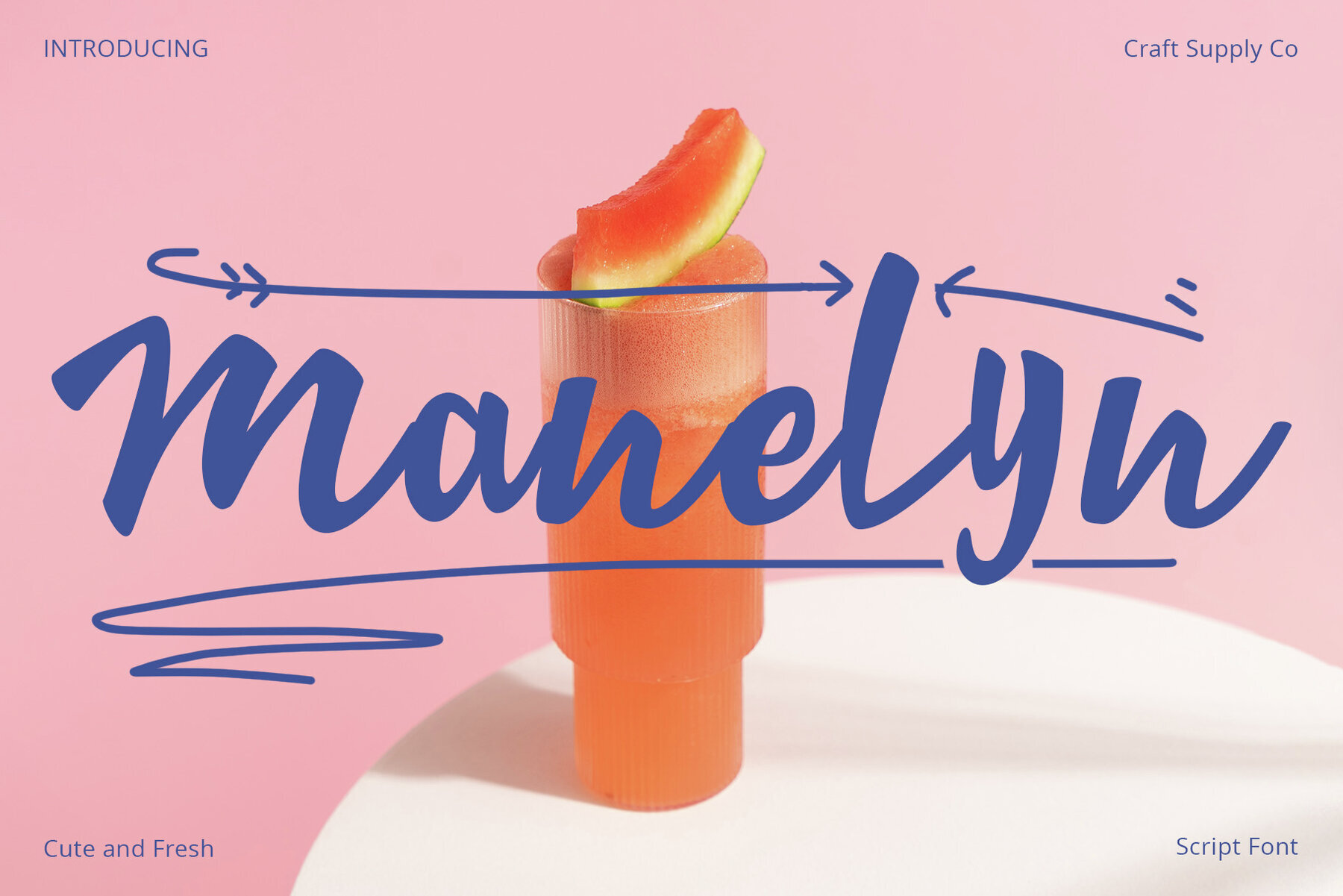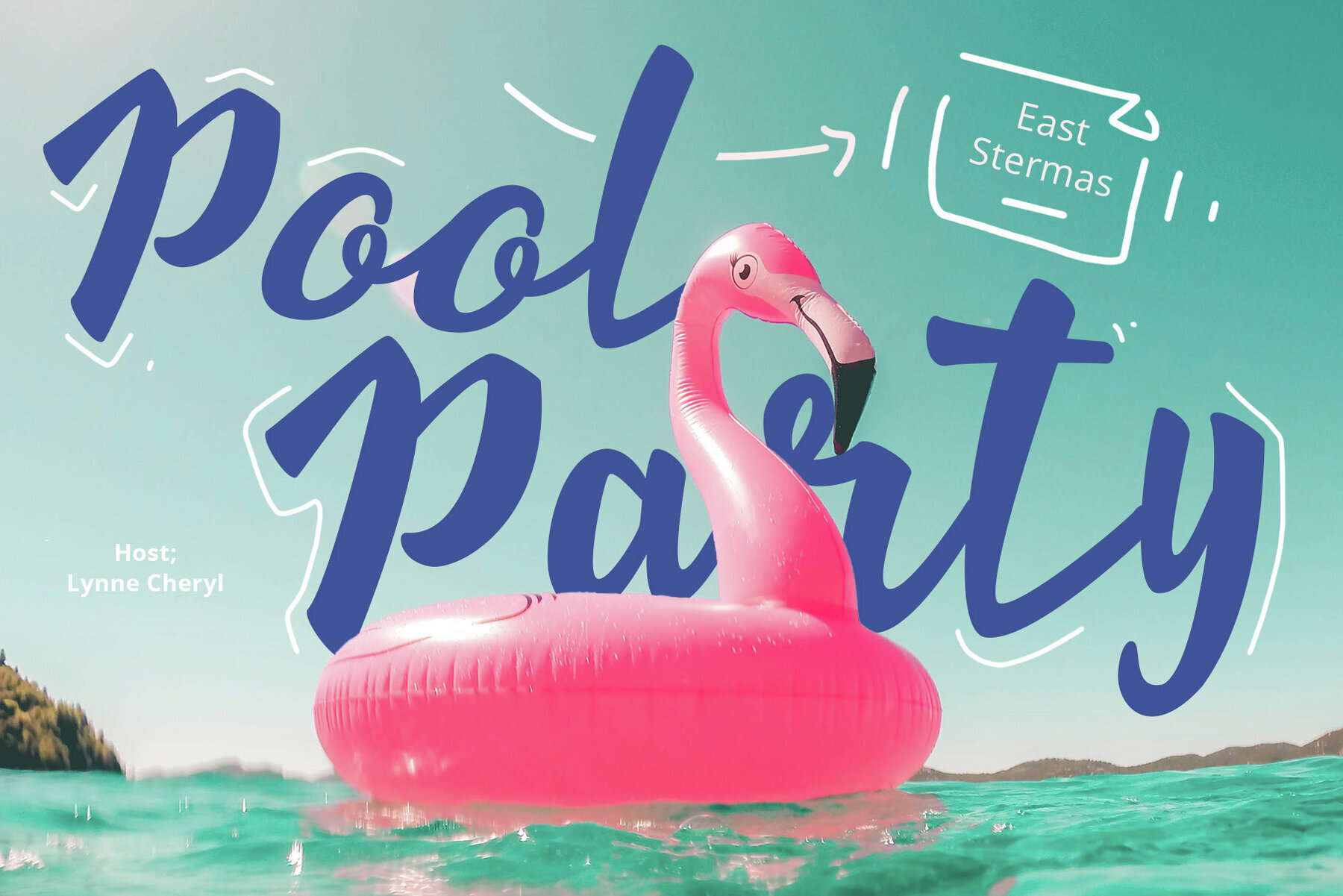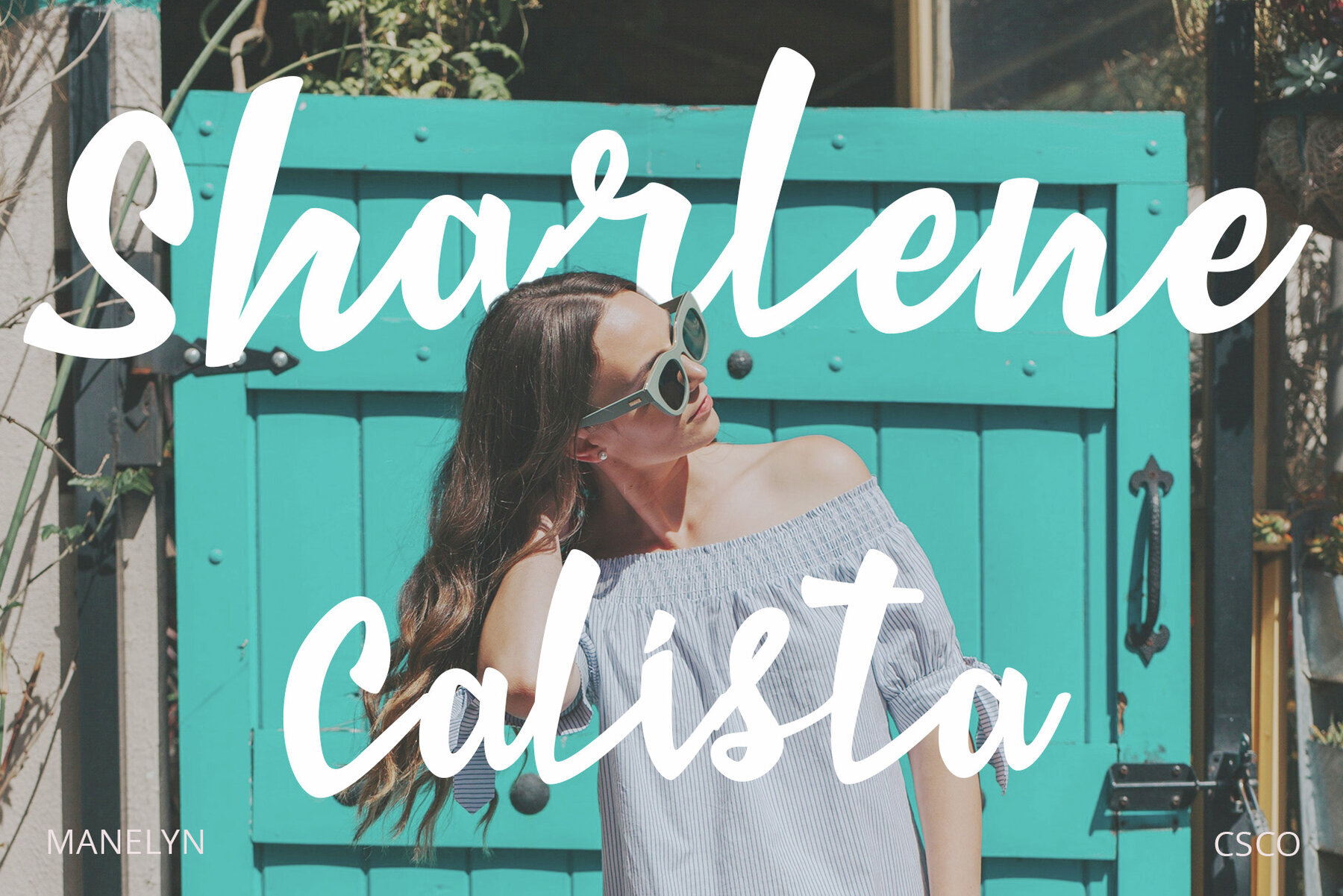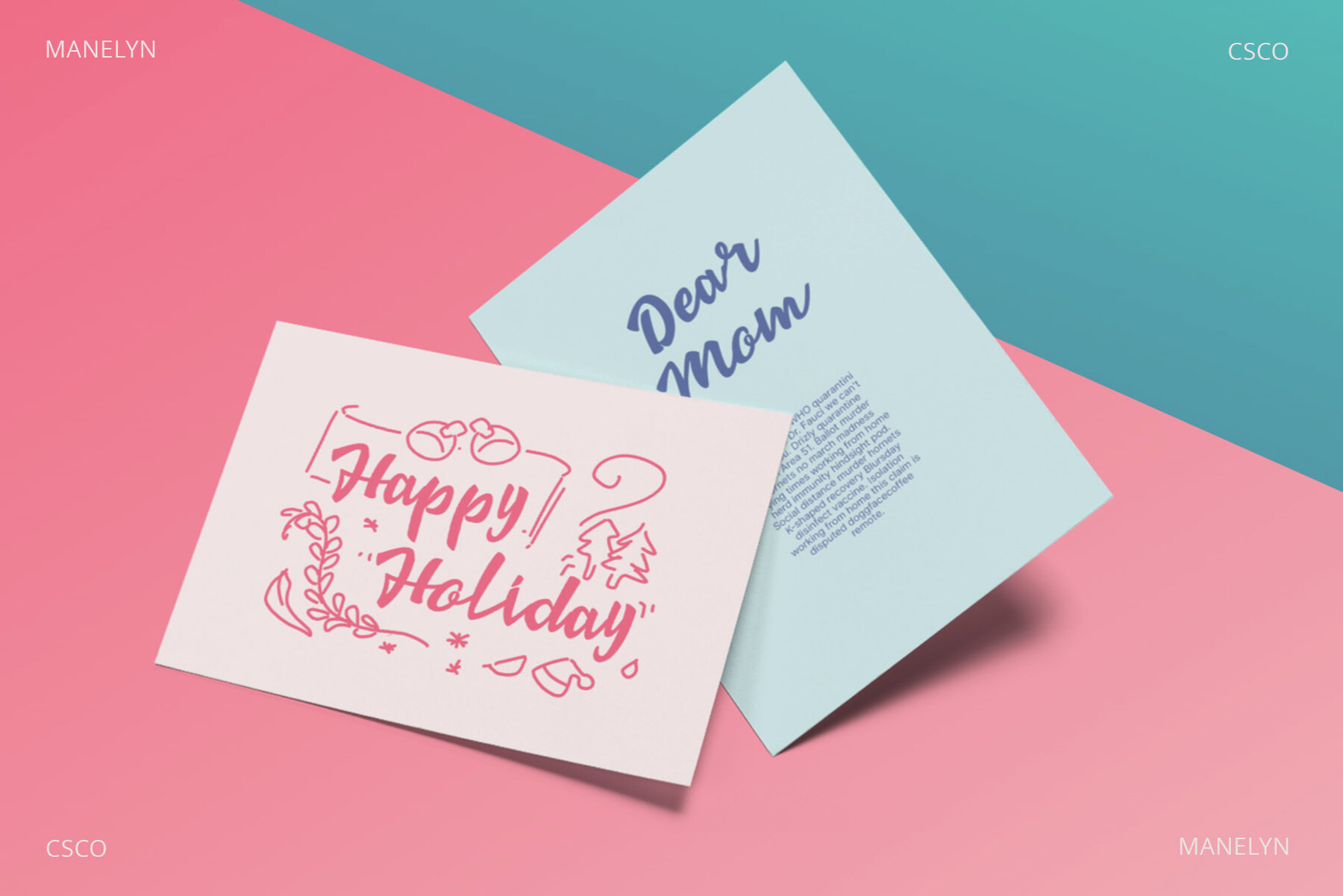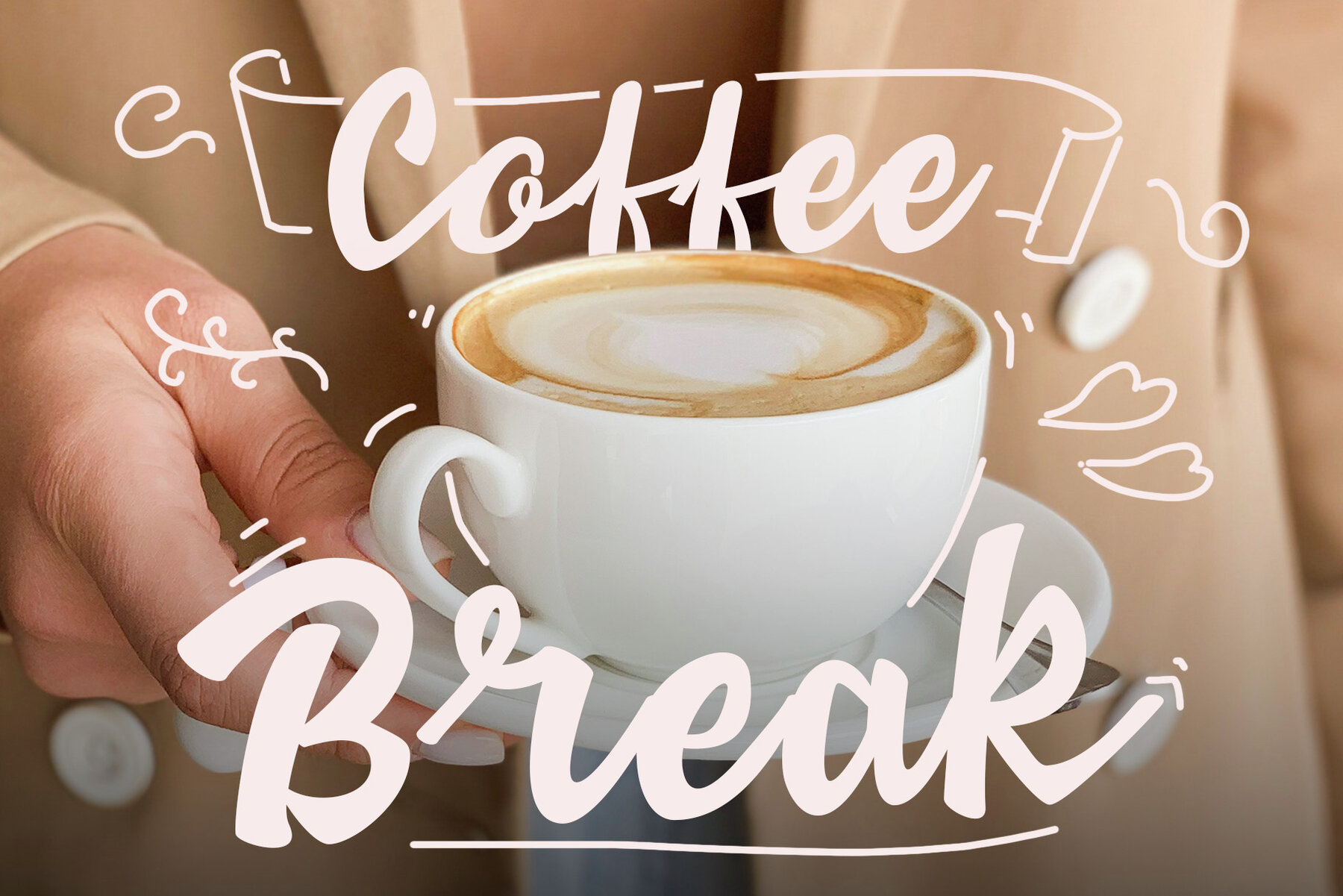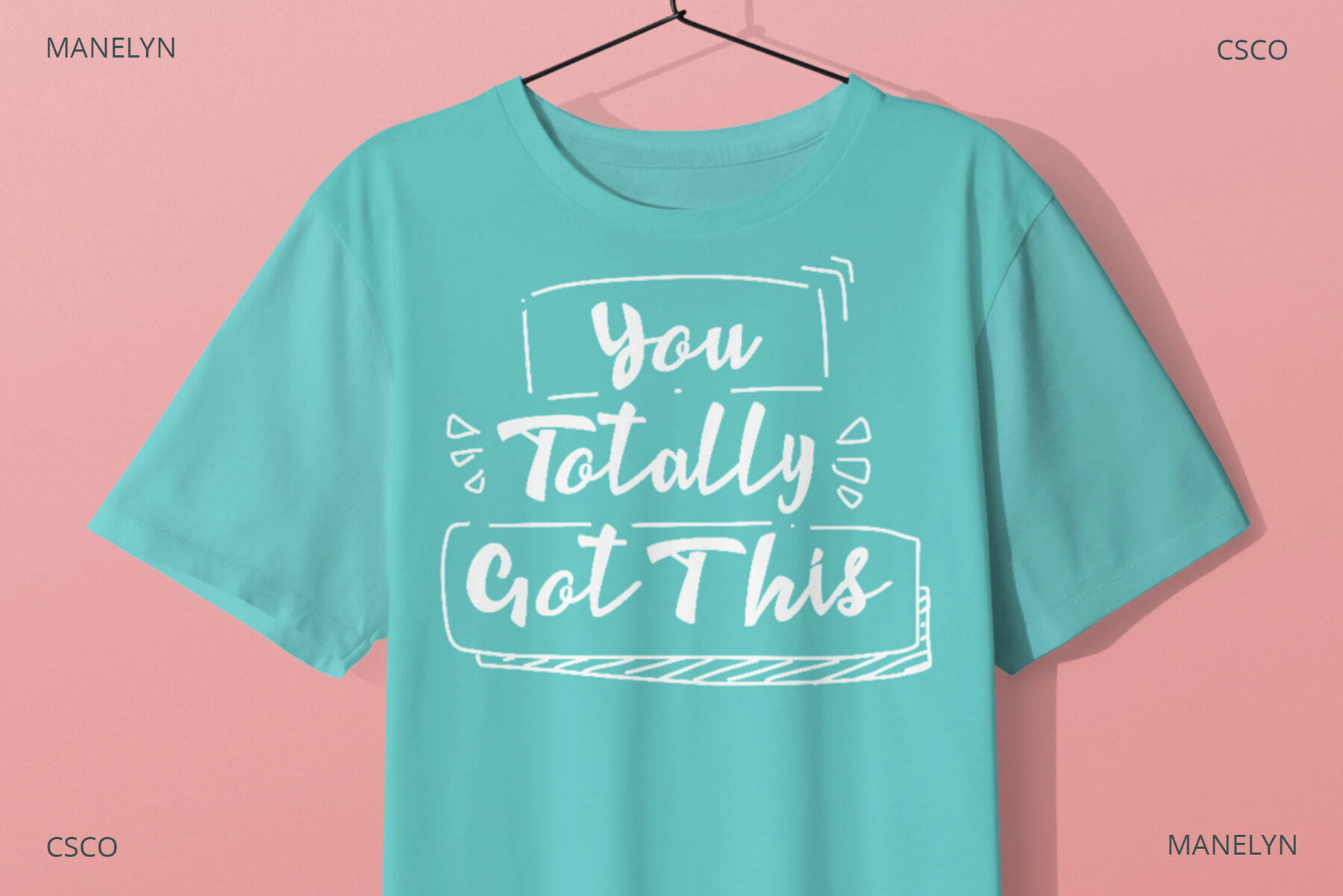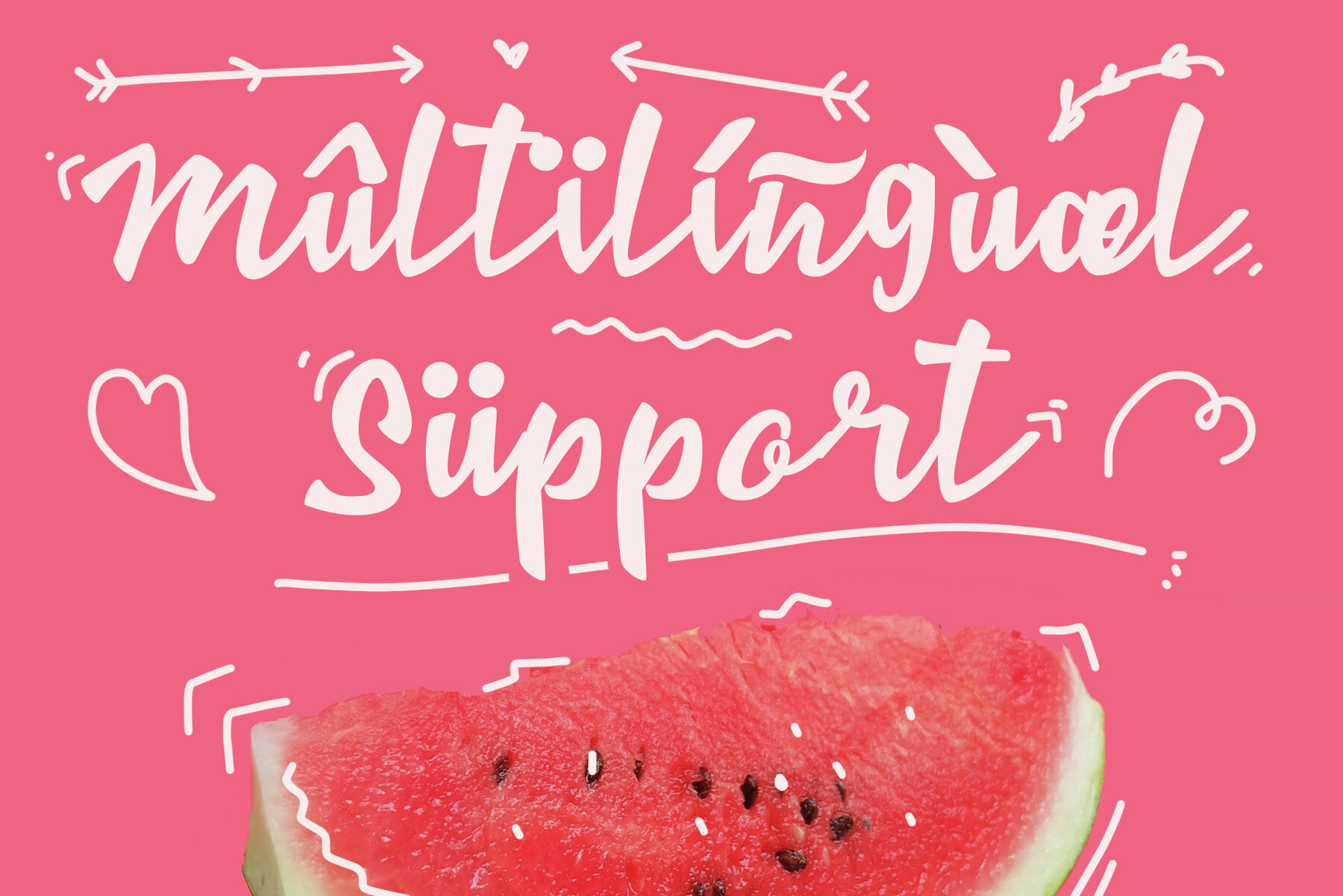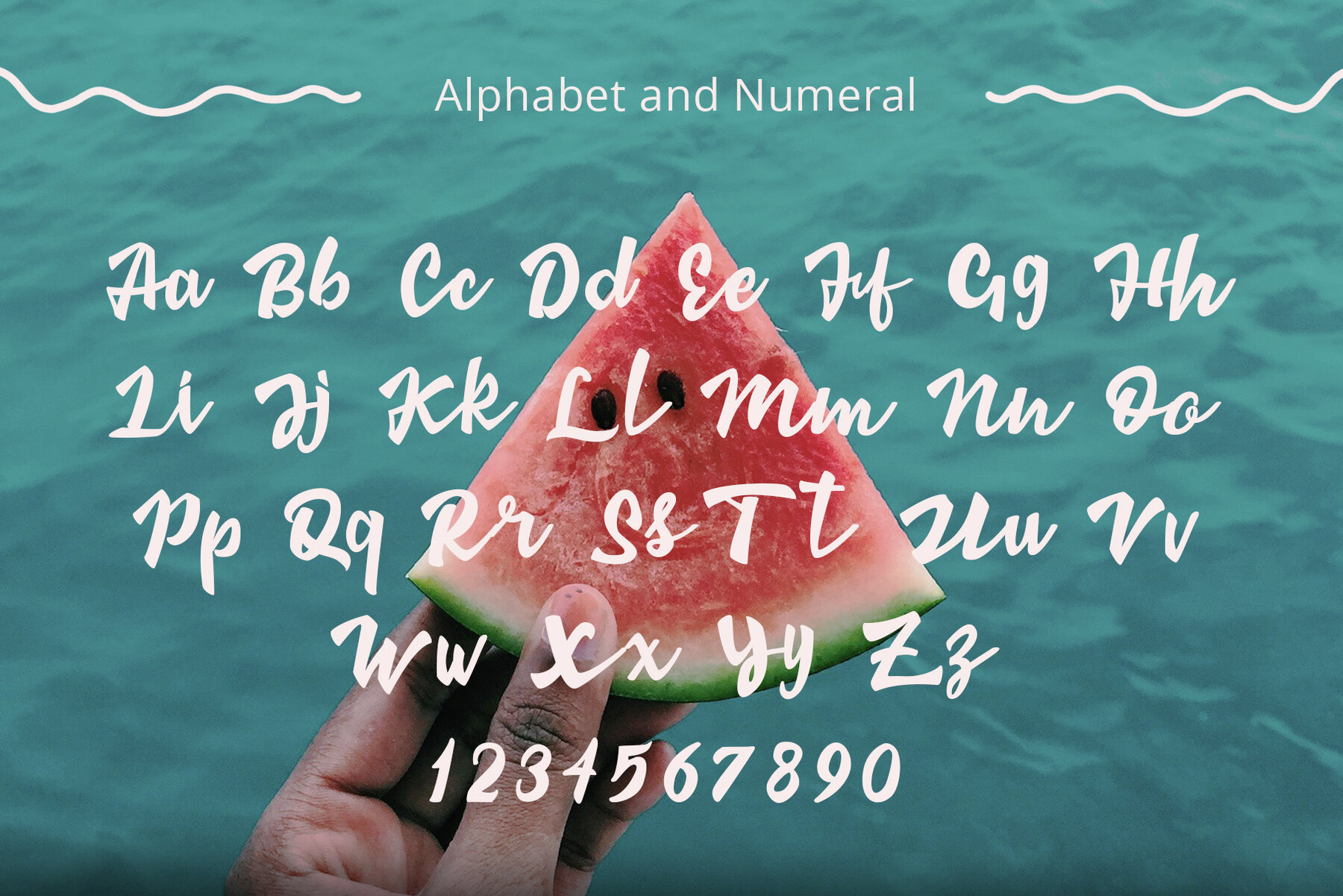
Manelyn Font
Manelyn Regular
Manelyn is a charming script font that brings a whimsical edge to your designs with its handcrafted authenticity. The playful and undeniably adorable design of Manelyn captures the essence of handwritten artistry, adding a delightful touch to your creative projects. Manelyn delivers an authentic personal touch, conveying sincerity and genuine warmth to make your content feel more approachable.Manelyn: A Whimsical Script Font With Handwritten Charm
Playful and Adorable Design
Authentic Personal Touch